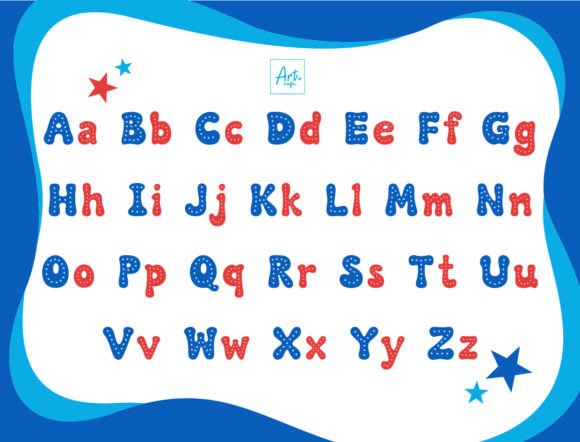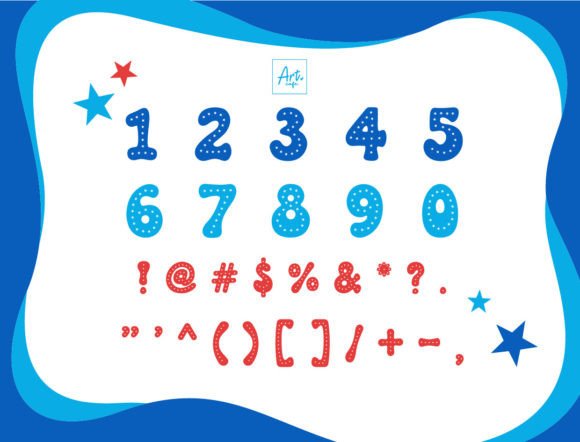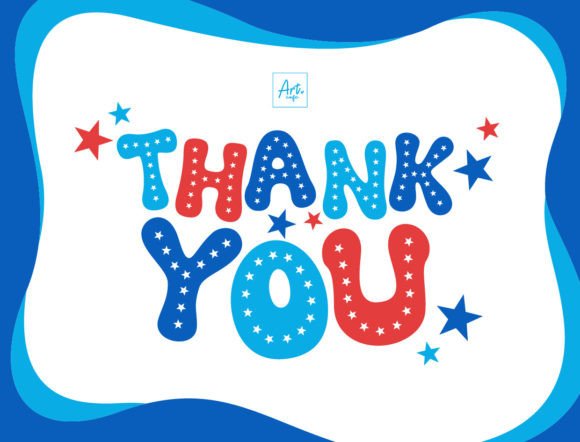
Fancy Star Font: Adding a Touch of Whimsy to Your Celebrations
Have you ever found yourself browsing through old family photo albums, reminiscing about cherished memories and special moments? Perhaps you stumbled upon a faded Fourth of July poster or a hand-drawn birthday invitation, and suddenly, a wave of nostalgia washed over you. That’s exactly what happens when you introduce the Fancy Star Font into your design work.
This imaginative font skillfully weaves together a vintage aesthetic with playful elements, making it the perfect addition to any festive project. Whether you’re designing a holiday card, creating a party invitation, or developing a brand identity, the Fancy Star Font adds a touch of whimsy and charm that’s hard to resist. As a designer, you’ll appreciate the versatility and nostalgic appeal of this font, which is sure to captivate your audience and leave a lasting impression.
Fancy Star Font Key Features
- Font Family: Fancy Star Font is a unique, hand-drawn font that adds a touch of elegance and sophistication to any design.
- Unique Characteristics: Features intricate, hand-drawn designs with star-shaped elements, adding a whimsical and festive touch to any design.
Fancy Star Font Review
✨ The Fancy Star Font is a charming, whimsical font that adds a touch of magic to any design project. Its intricate star patterns and delicate lines make it perfect for creating a sense of wonder and enchantment. I particularly love how it works well for titles, headings, and other display text.
- ✨ Versatility: The Fancy Star Font is incredibly versatile and can be used in a variety of contexts, from children’s book illustrations to luxury branding.
- ✨ Customization: The font is highly customizable, allowing designers to adjust the size, color, and spacing to suit their needs.
- ✨ Unique: The Fancy Star Font is truly unique and sets itself apart from more traditional fonts.
⚠️ However, the Fancy Star Font does have some limitations. It can be difficult to read in smaller sizes, and the intricate details can make it challenging to pair with other fonts. Additionally, the font may not be suitable for formal or professional projects.
Overall, I think the Fancy Star Font is a fantastic addition to any designer’s toolkit. While it may have some limitations, its unique charm and versatility make it a great choice for a wide range of projects.
Fancy Star Font: A Practical Application Guide
Tips for Getting the Most Out of Fancy Star Font
Use Fancy Star Font for headings and titles to add a touch of elegance and sophistication to your designs. Experiment with different font sizes and styles to create visual interest. You can also pair Fancy Star Font with other fonts to create a unique and eye-catching design.
Fancy Star Font is perfect for: creating invitations, designing greeting cards, making social media graphics, and adding a touch of luxury to your branding materials.
Alternatives to Fancy Star Font for Designers
Great Vibes is a beautiful, elegant script font ideal for adding a touch of sophistication to designs. It’s perfect for wedding invitations, branding materials, and other high-end projects. Great Vibes has a more refined and polished look compared to Fancy Star Font, which makes it suitable for more formal designs.
2. Dancing Script
Dancing Script is a playful, cursive font that’s great for adding a whimsical touch to designs. It’s perfect for creative projects, such as children’s book covers, party invitations, and social media graphics. Dancing Script has a more lively and energetic feel compared to Fancy Star Font, making it ideal for projects that require a fun and carefree vibe.